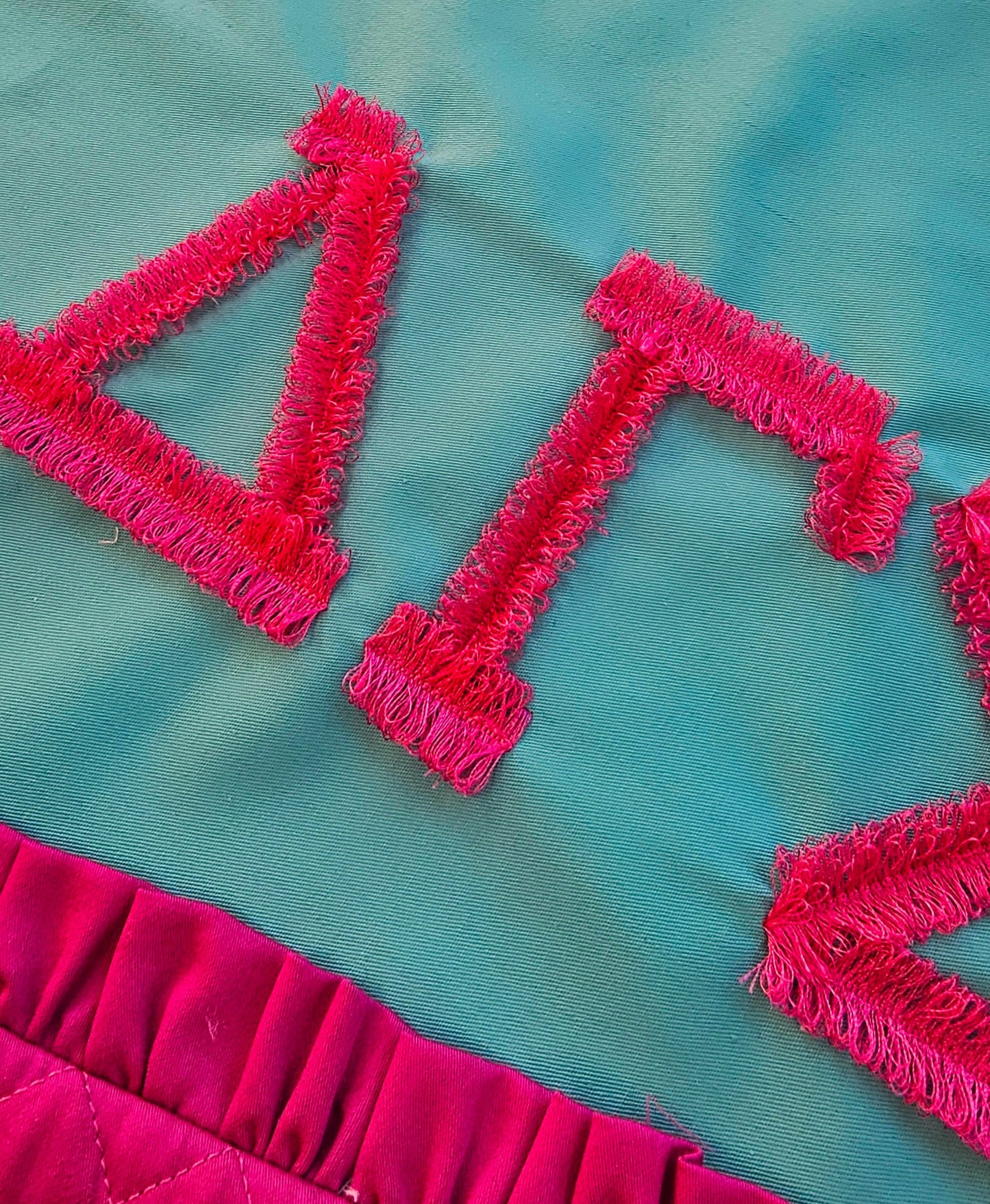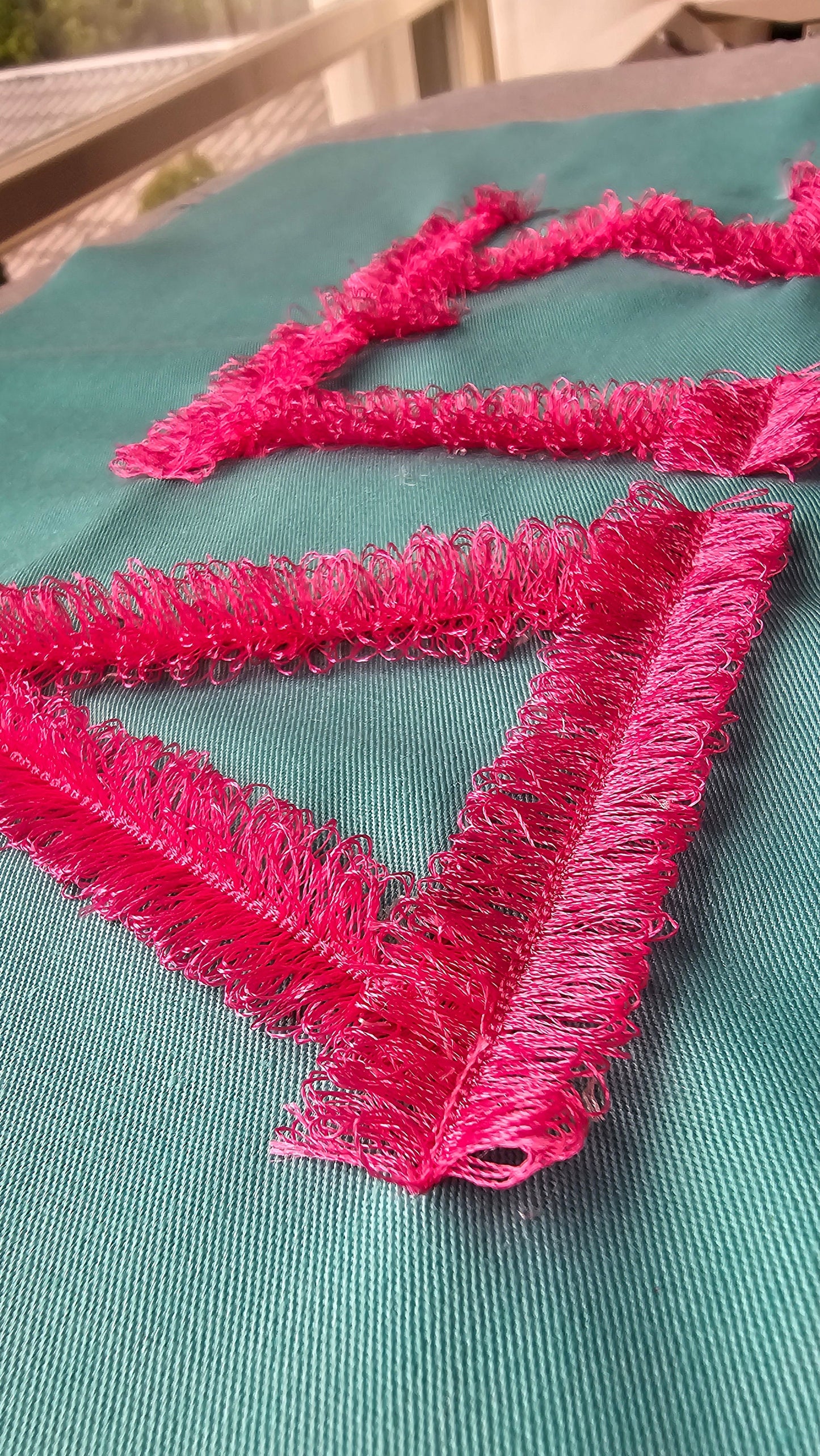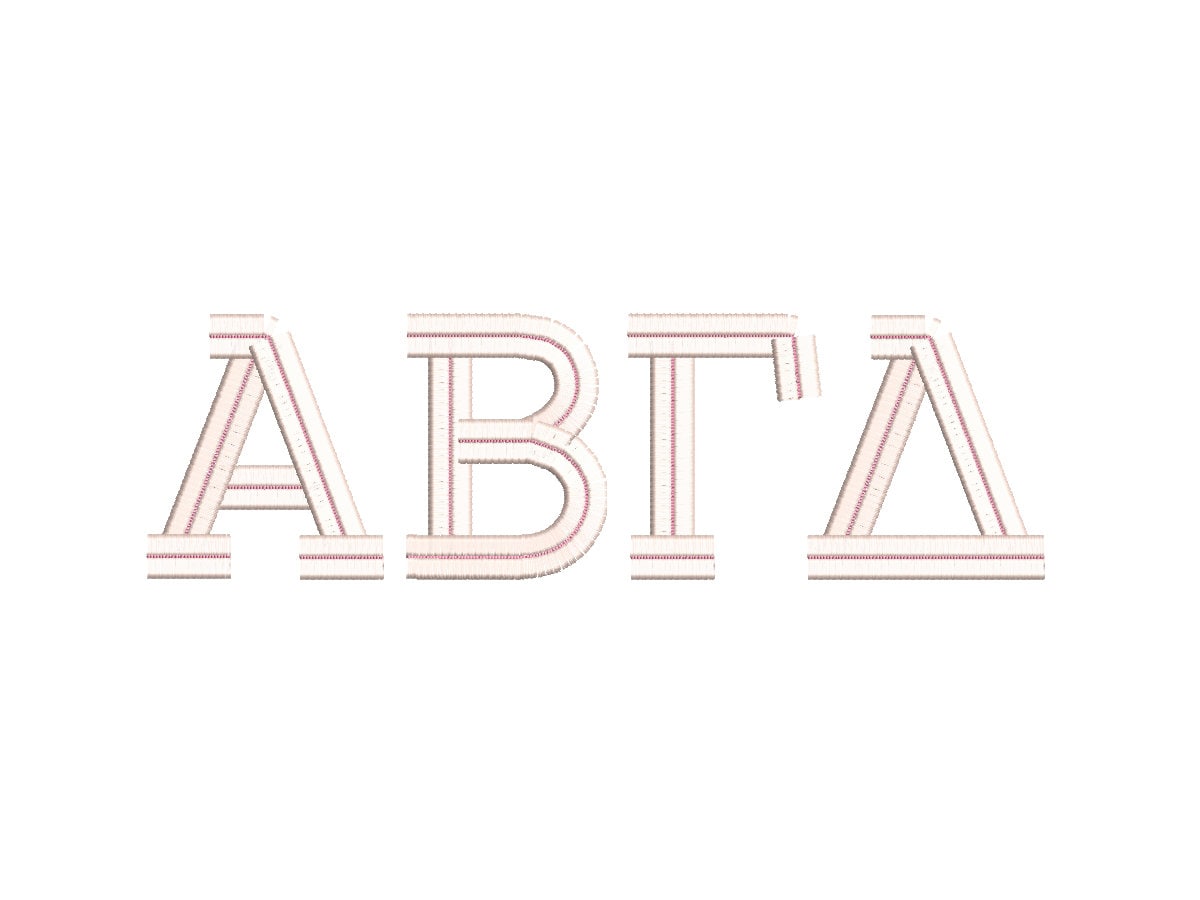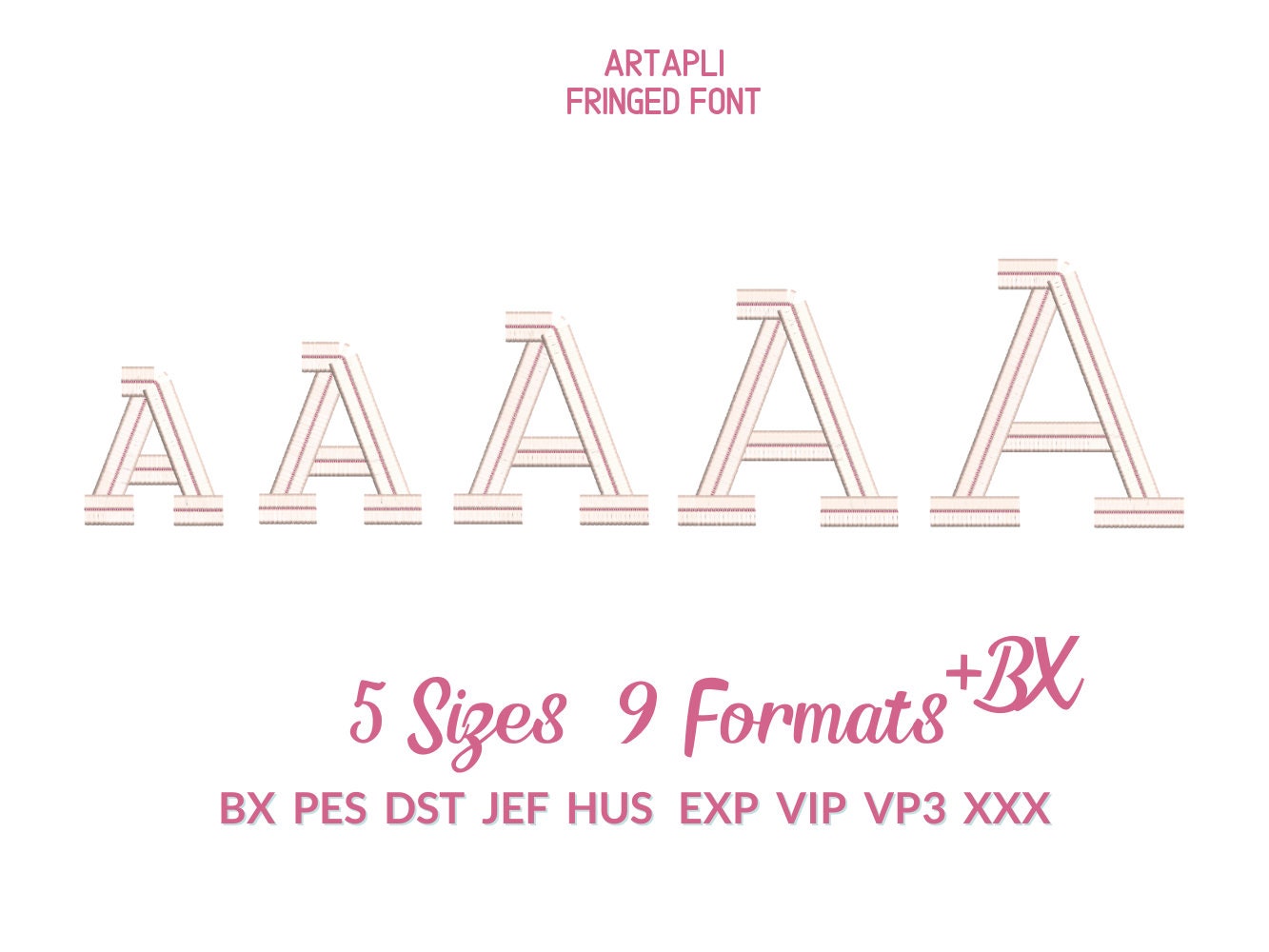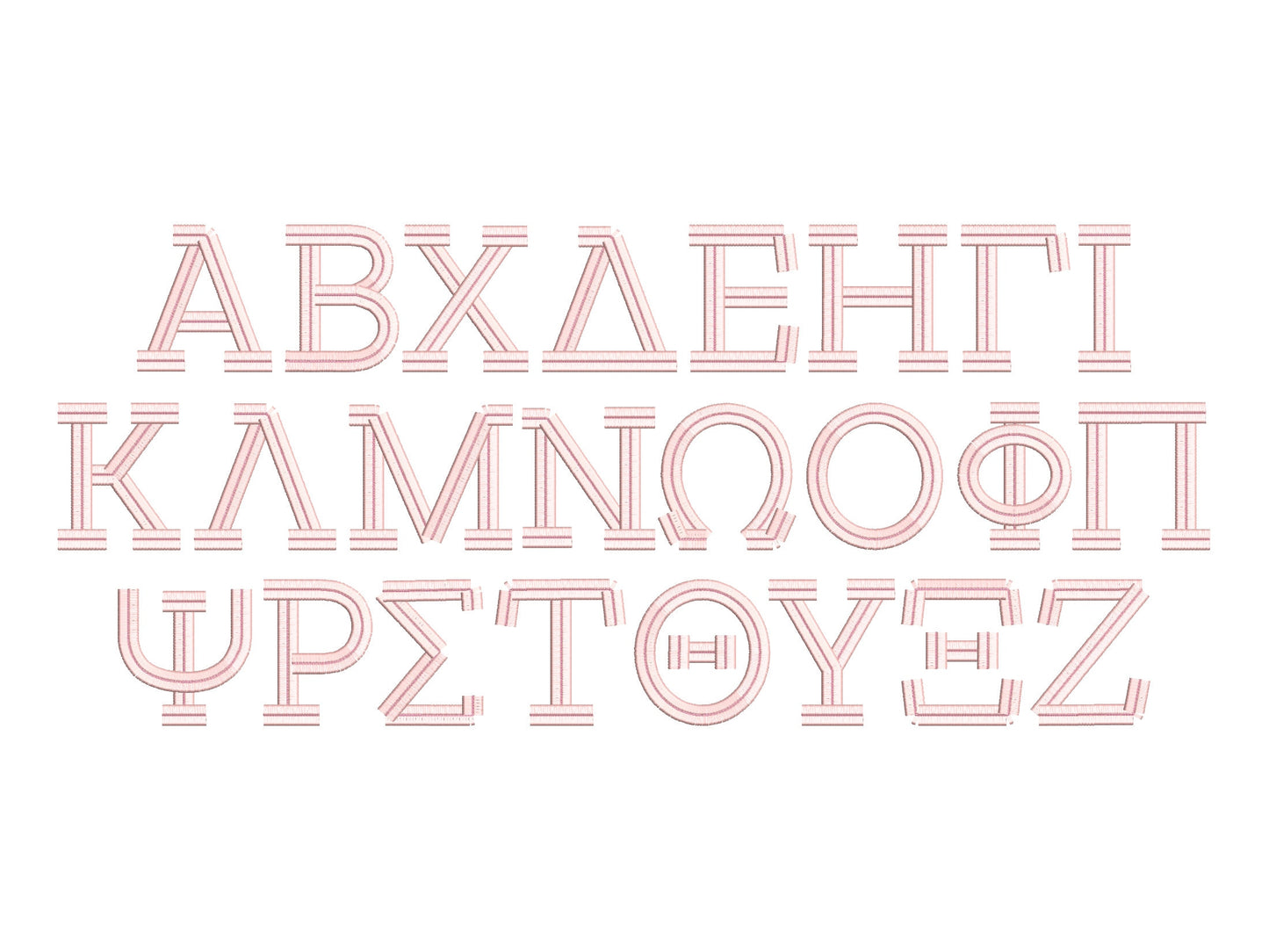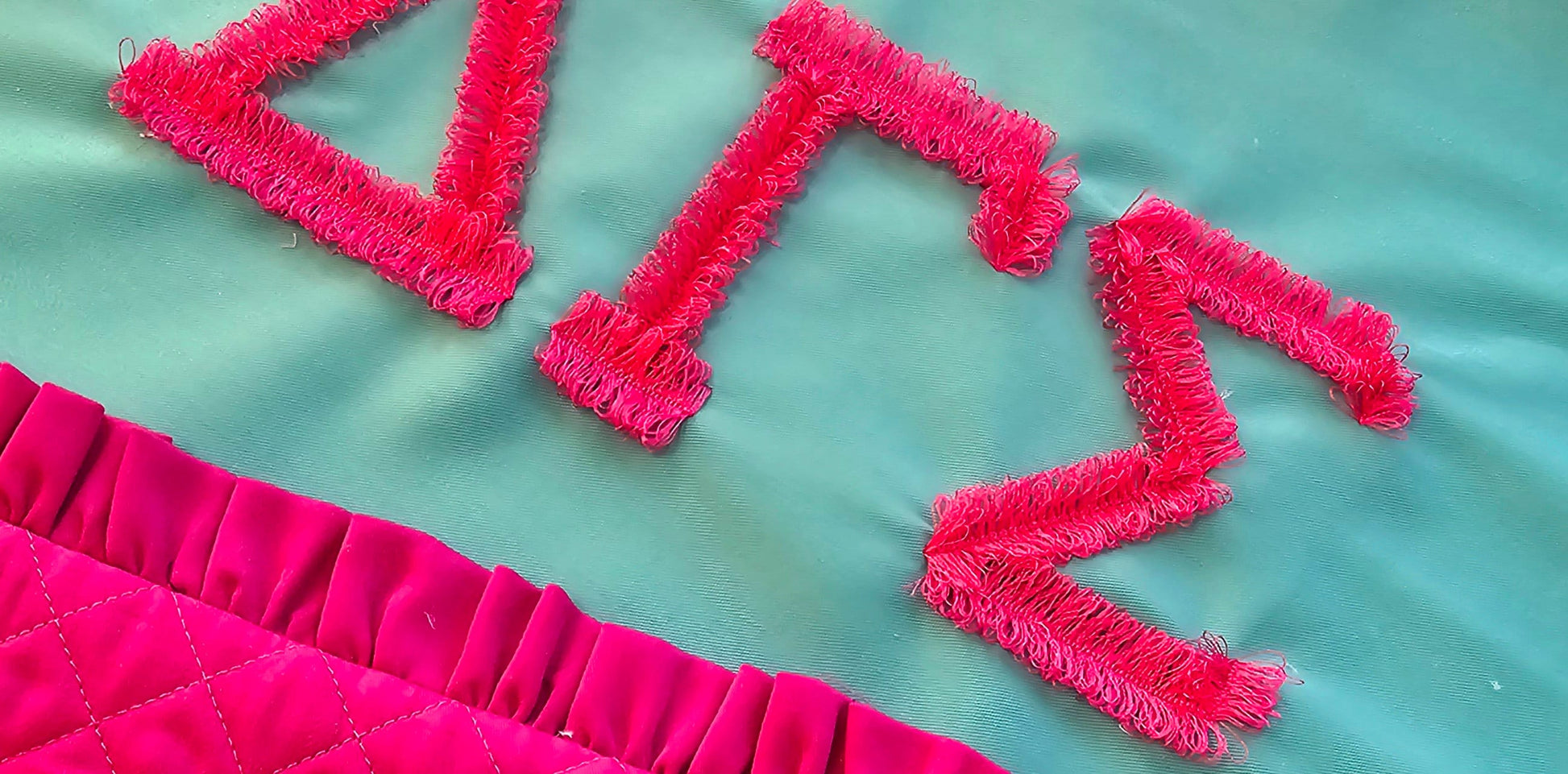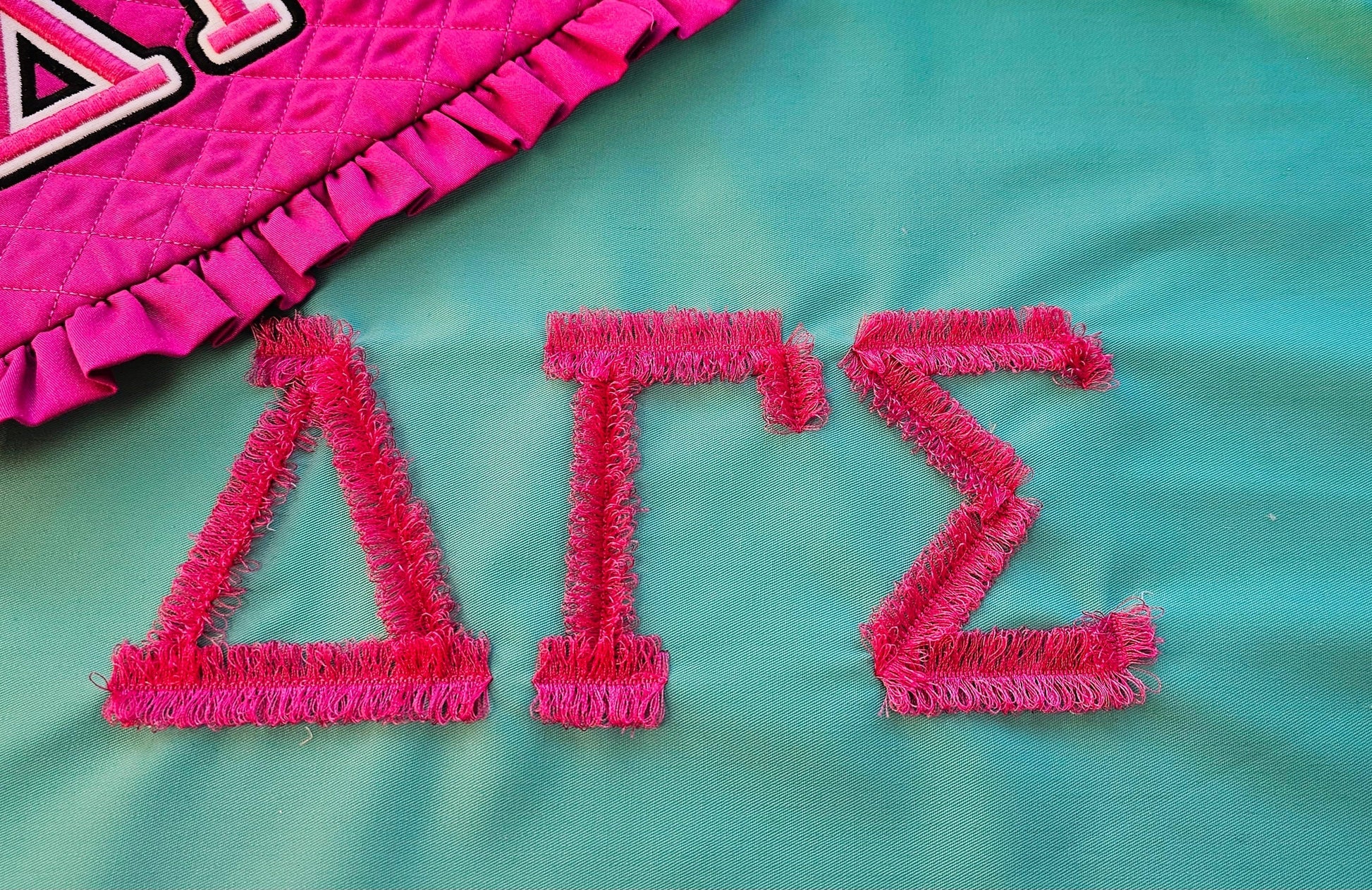
Greek Alphabet Fringed Font
All 24 Greek letters in five sizes: 3, 3.5, 4, 4.5 and 5 inches. The long satin stitches are cut on the back and fluffed up into fringe, which is tear and wash resistant.
- 24 fringed Greek letters
- 5 sizes: 3 to 5 in